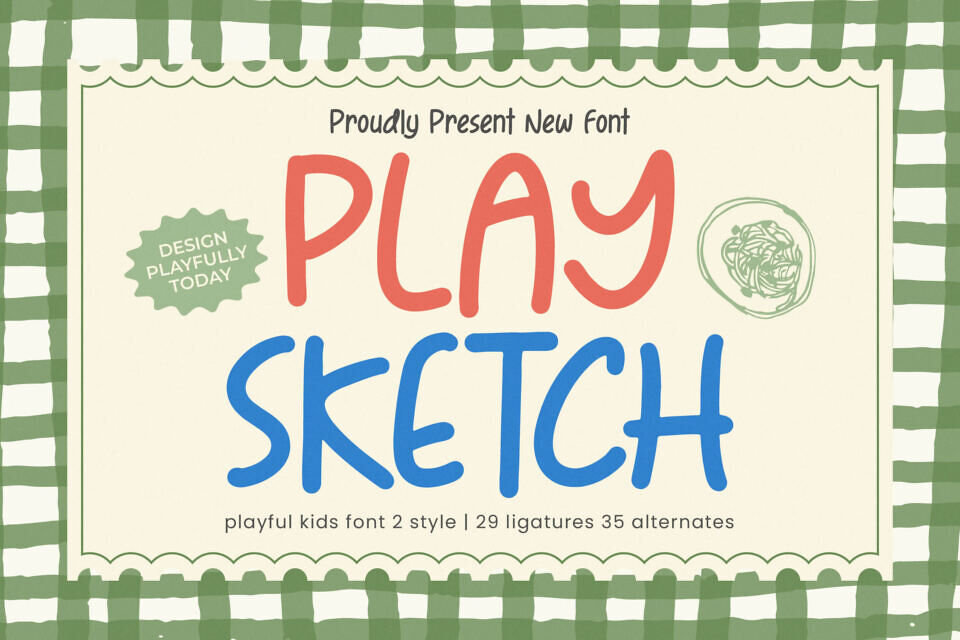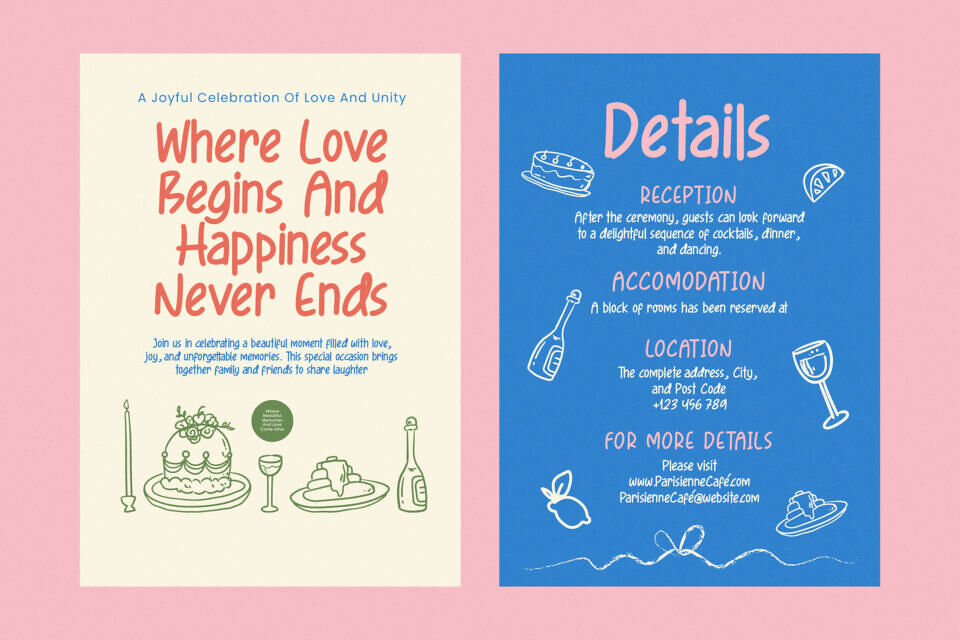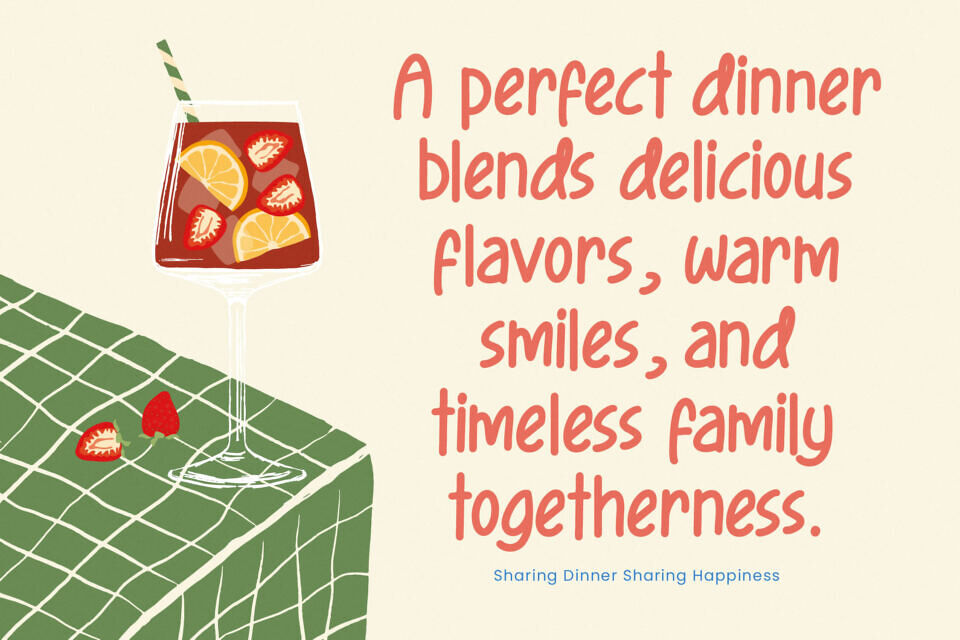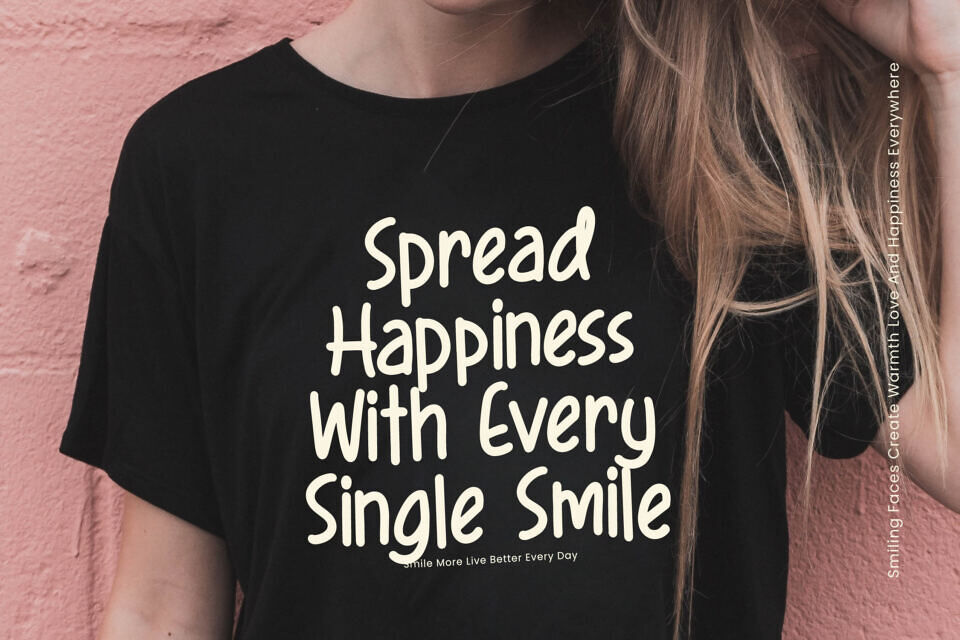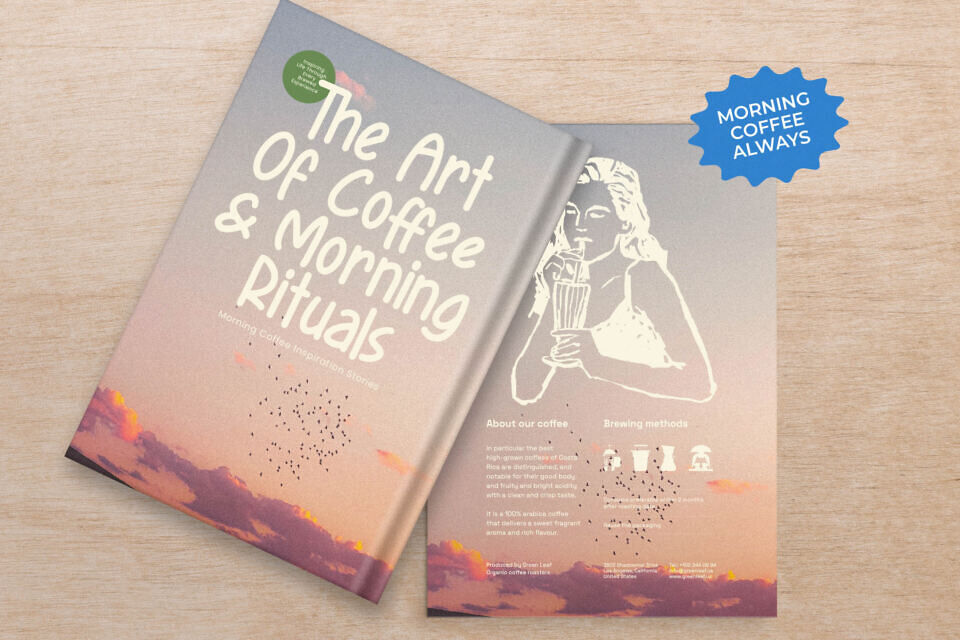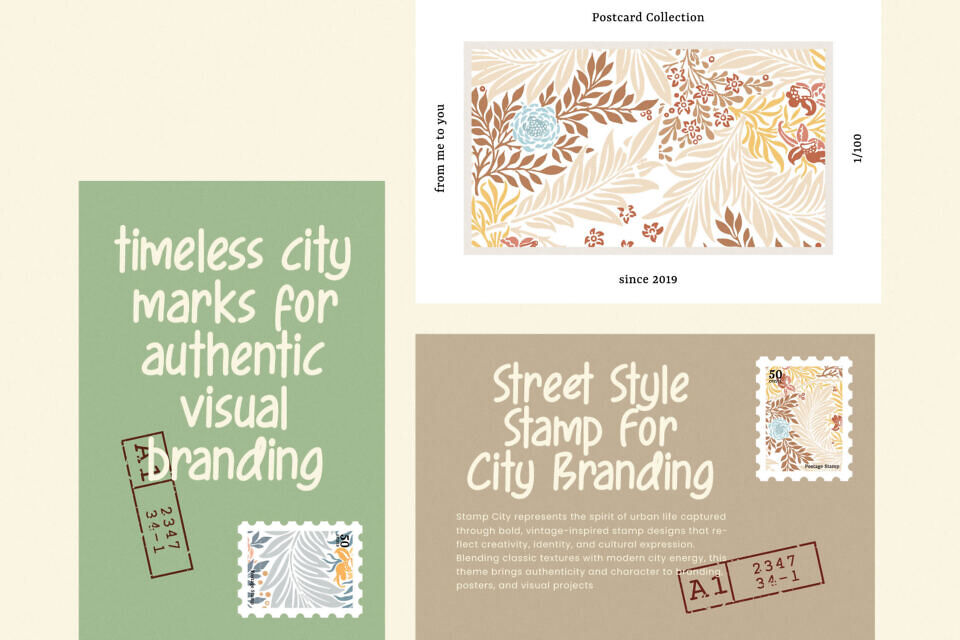
Add a playful touch to your project with Play Sketch, a charming, hand-drawn font by Letterena Studios. Its cheerful, imperfect letters convey joy and warmth, making it perfect for kid-focused branding, educational materials, and social media graphics.
With a range of characters, ligatures, and alternates, this font offers versatility and customization options. It also supports multiple languages, ensuring your message translates globally and connects with diverse audiences, making it ideal for international projects and brands seeking a youthful, approachable voice.